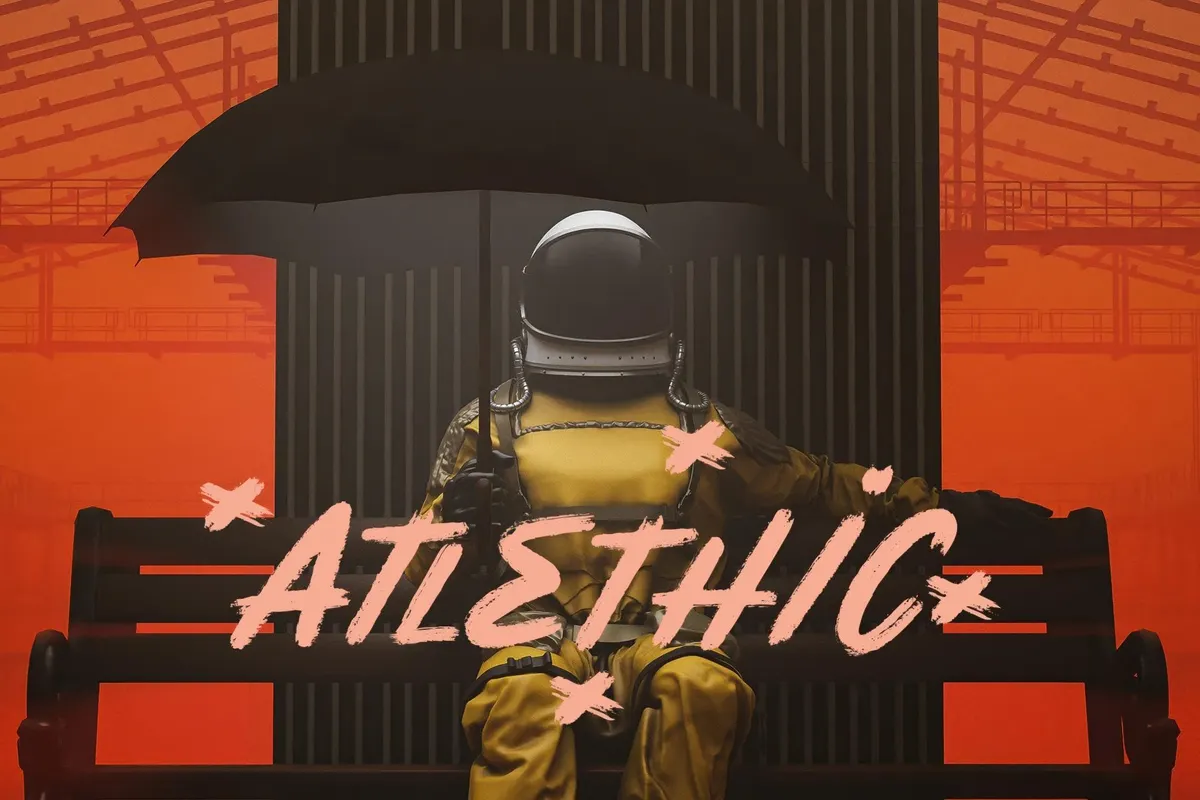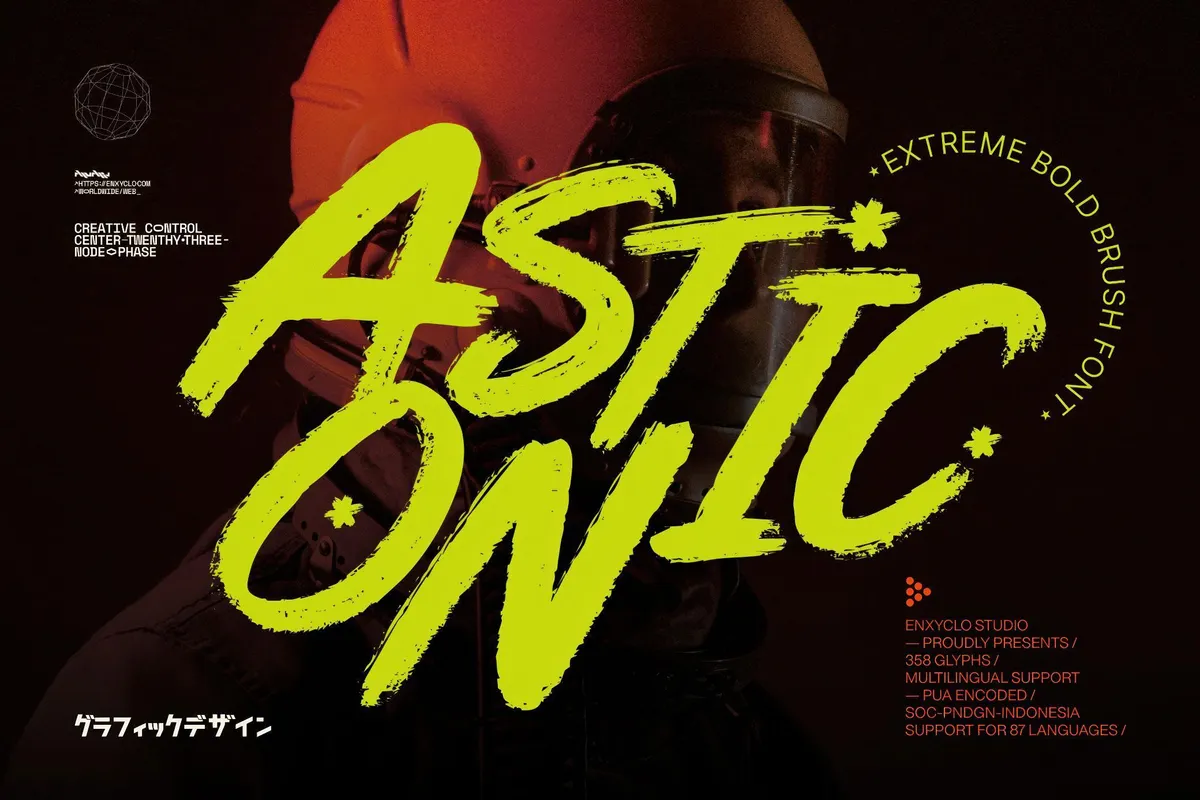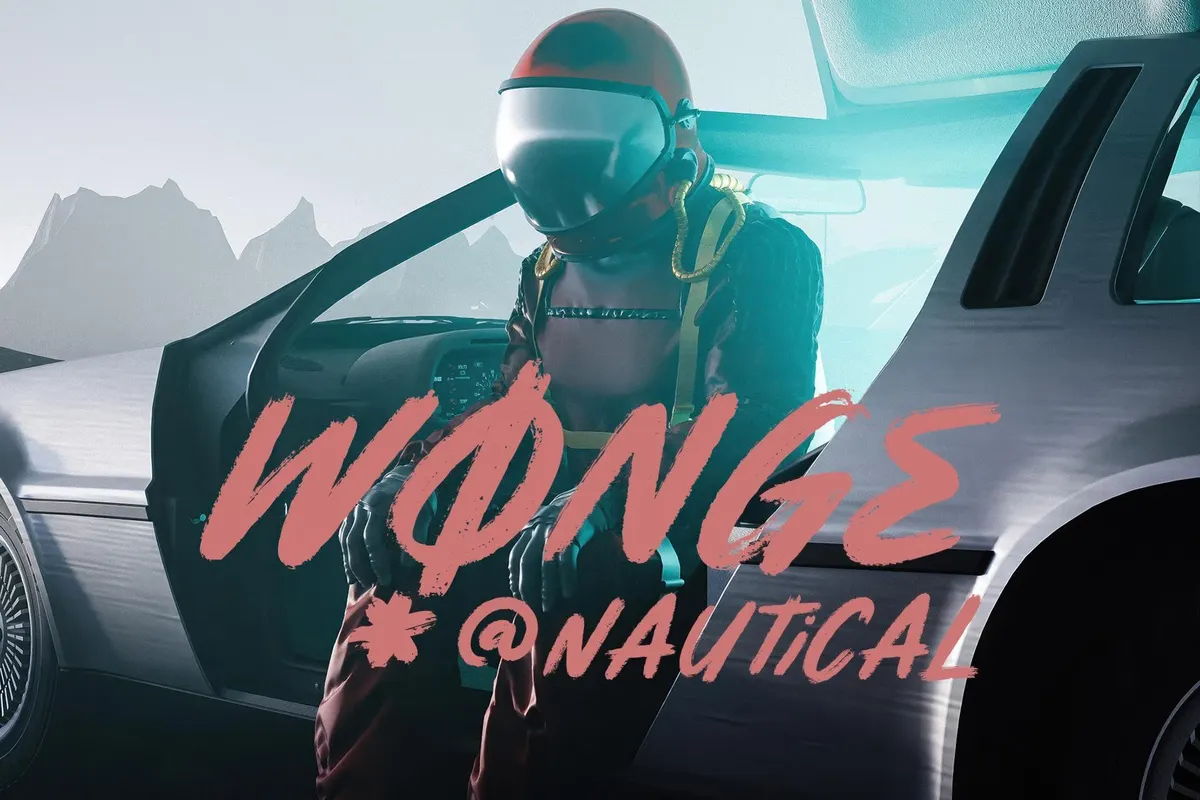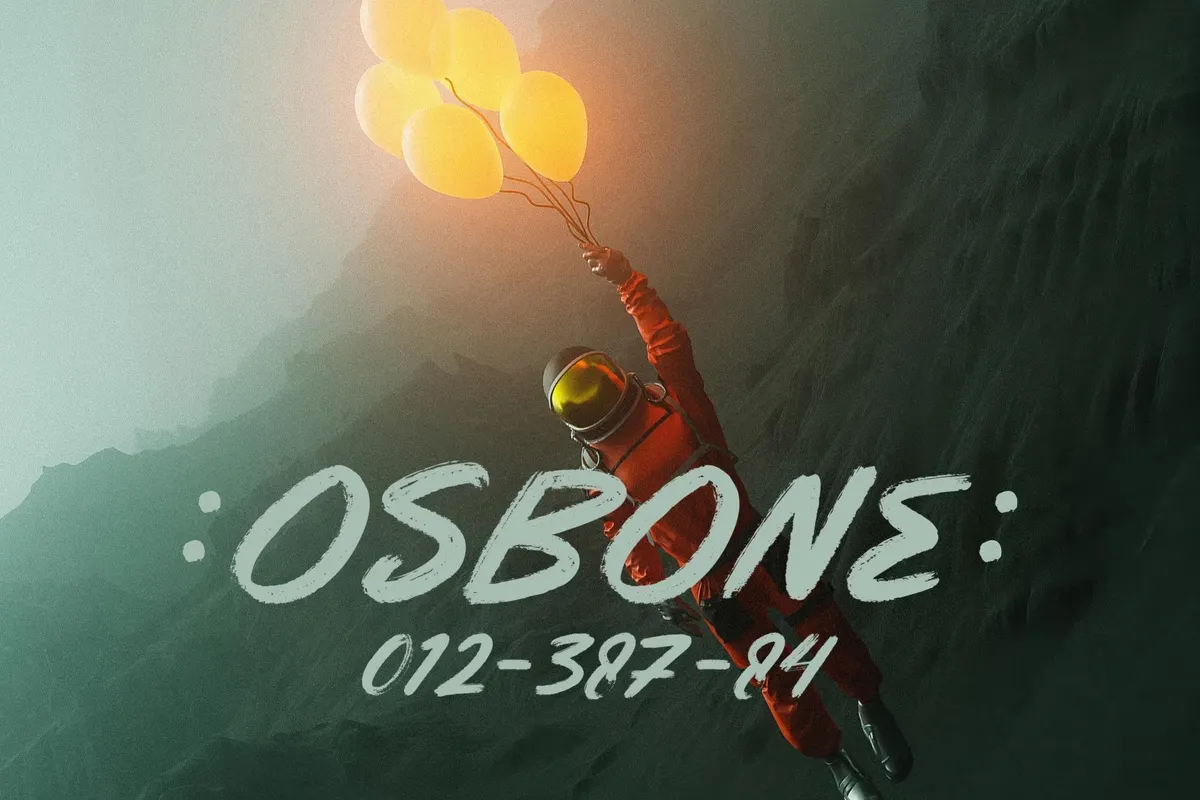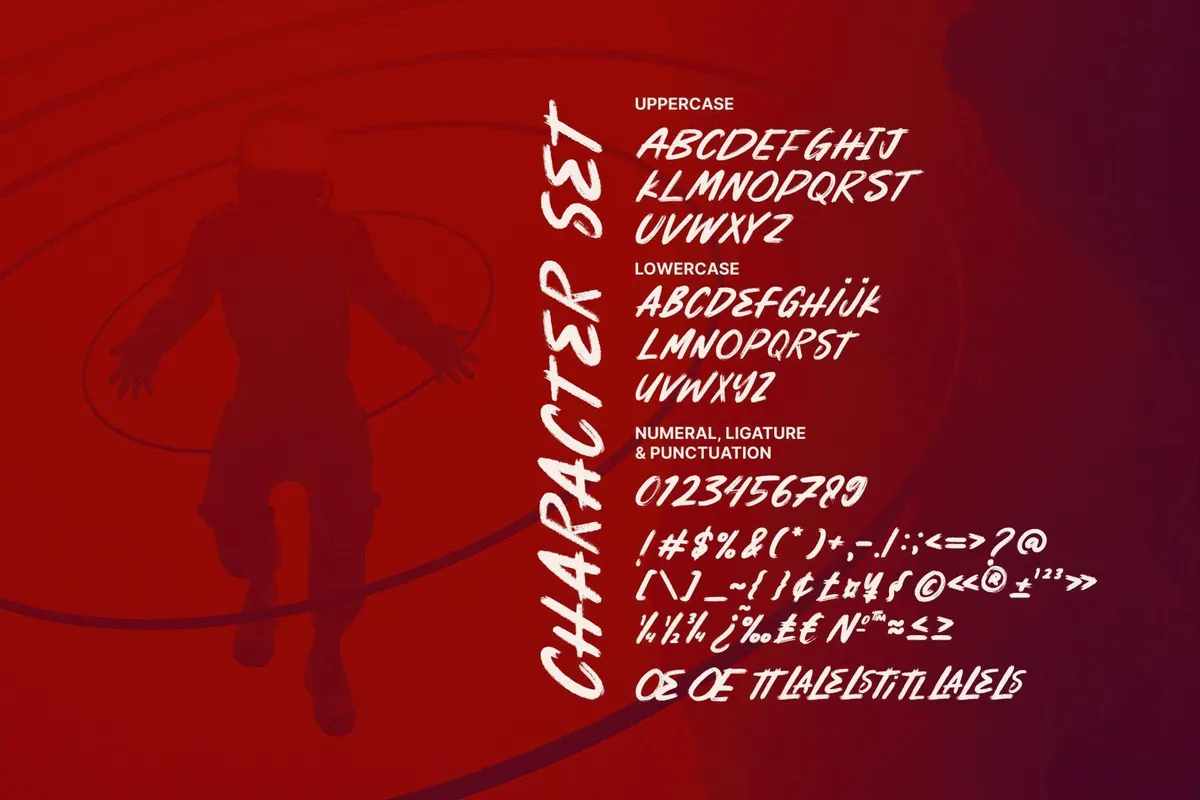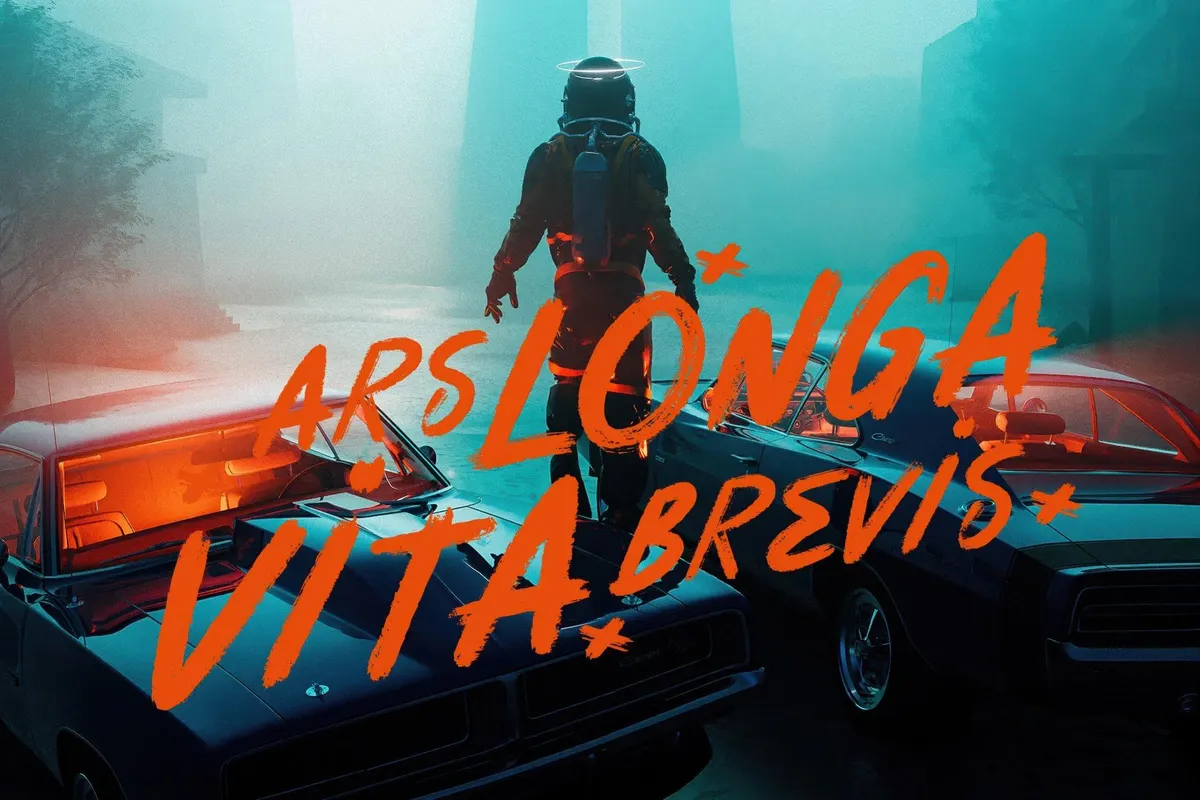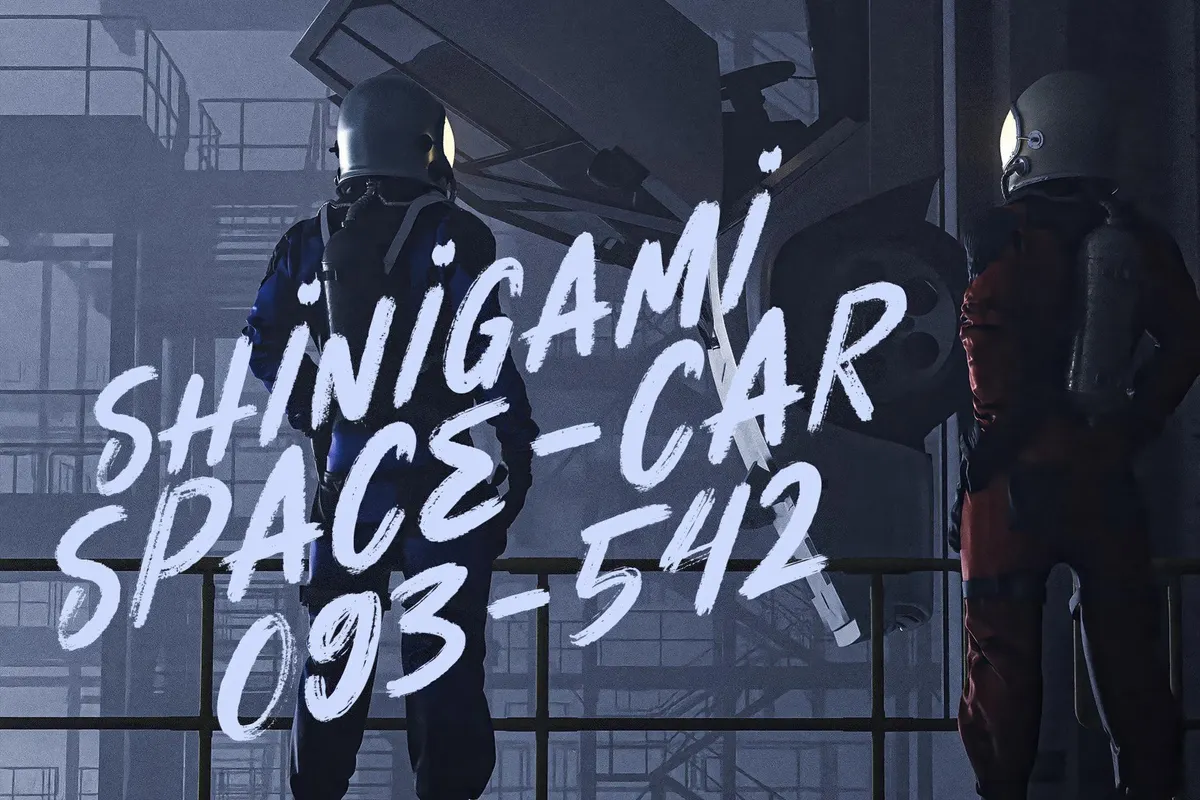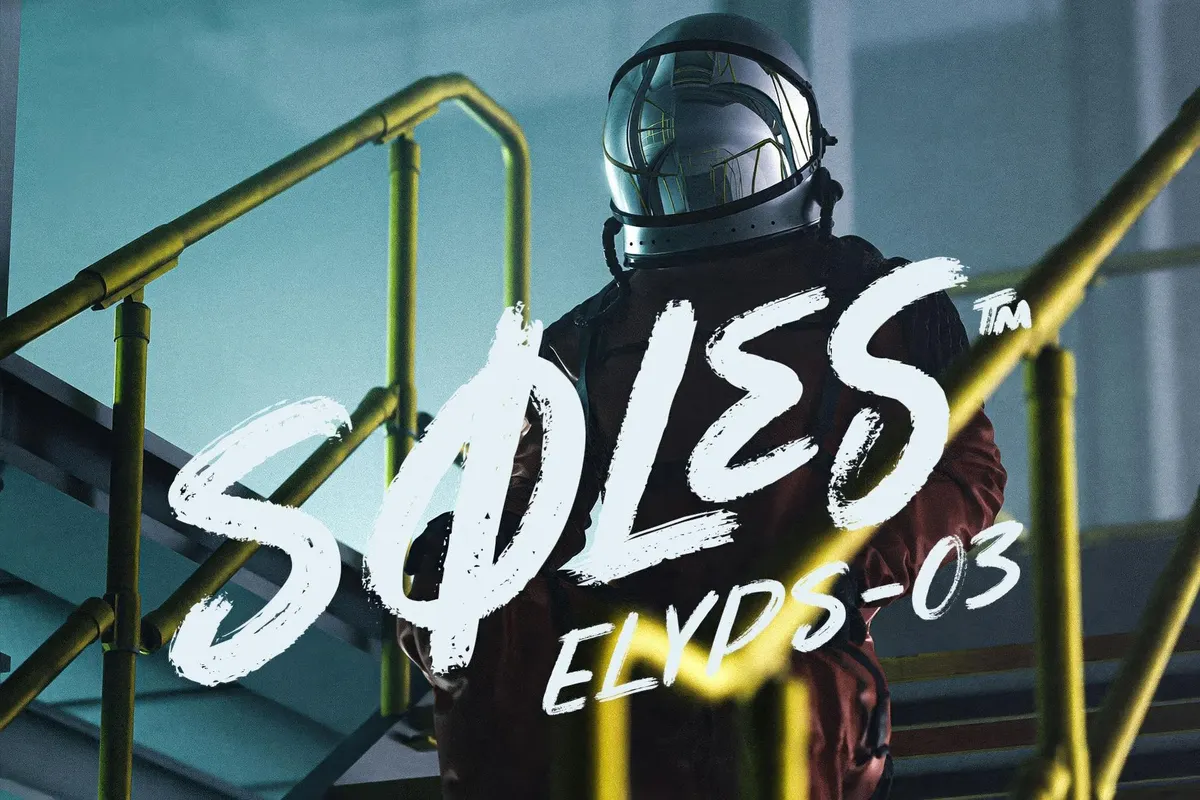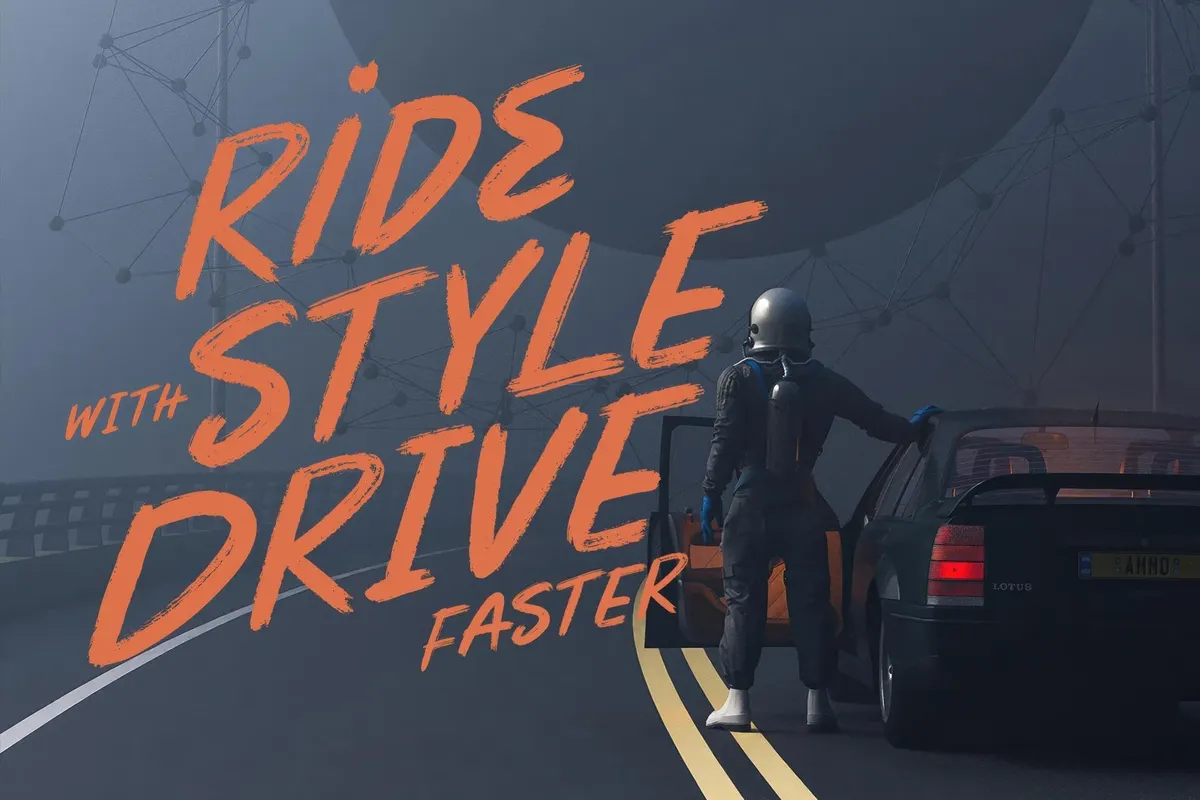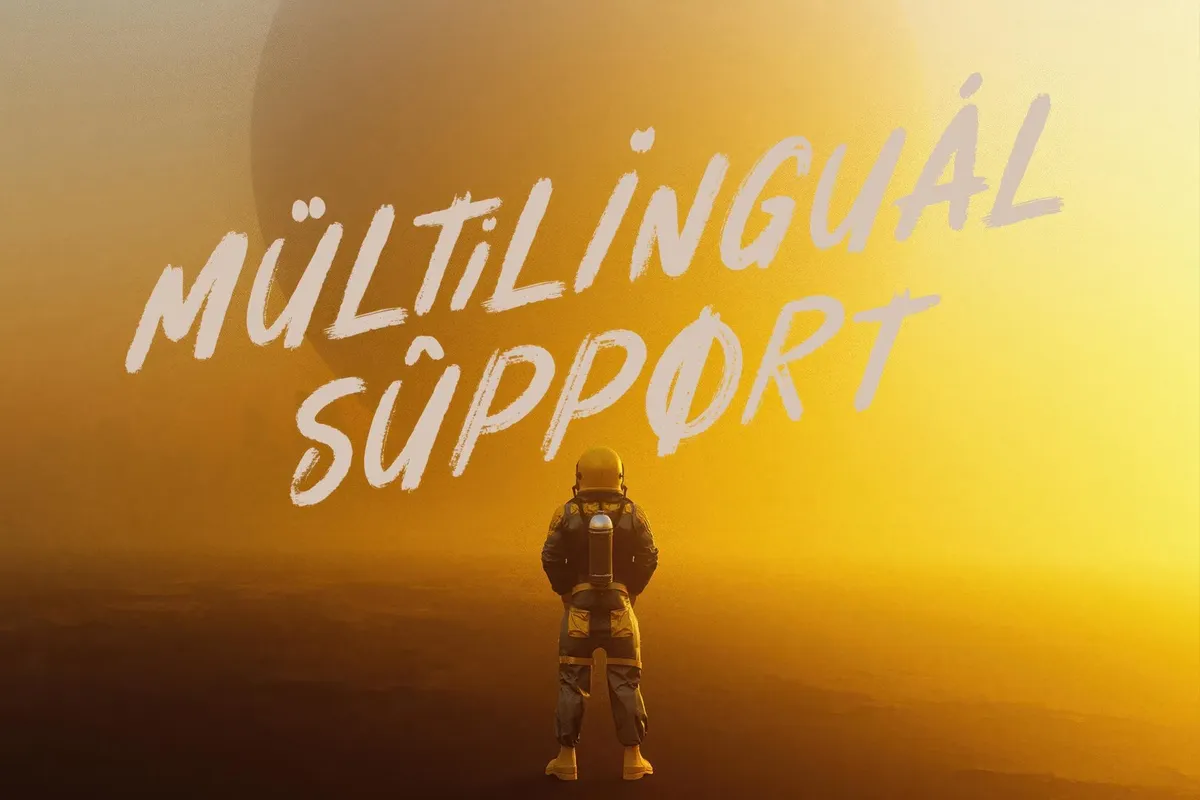
NCL ASTONIC — Bold Dry Brush Font
Bring boldness and personality to your designs with Astonic, a dry-brush display font. Its edgy strokes backed with a pro-grade tech specs make it perfect for headlines, posters, branding, and any project that demands “always on a move” vibe.
This bold brush script font combines raw energy with kinda classic dry-brush medium, making it a standout choice for high-impact designs. With 358 glyphs, including uppercase, lowercase, numerals, symbols, and 9 ligatures, it delivers versatility for a wide range of projects. Whether used for billboards, magazine titles, logos, or t-shirt designs, its dynamic strokes maintain their charm at both large and small sizes. Supports 87 languages, so it’s ideal for global projects that require an expressive, multilingual typeface.